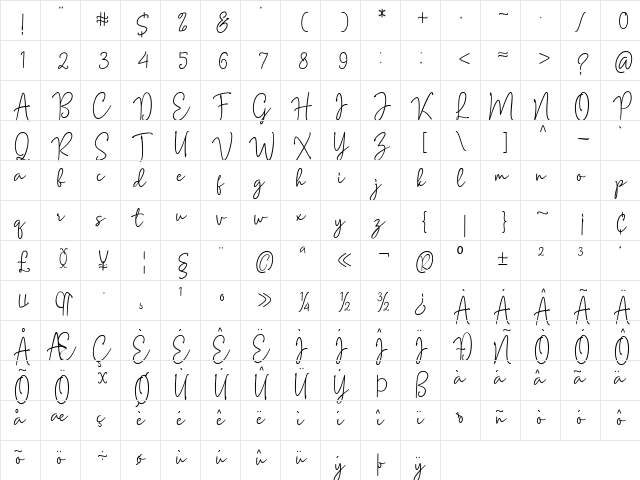
Momday Regular
Design Context for Momday Typeface
Momday is a composed and adaptable typeface that performs quietly and consistently across a wide range of design contexts.